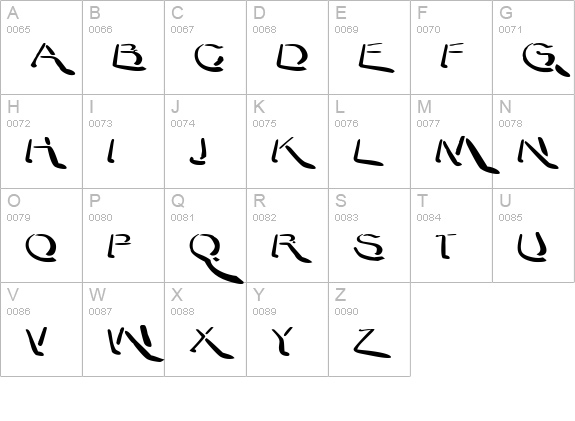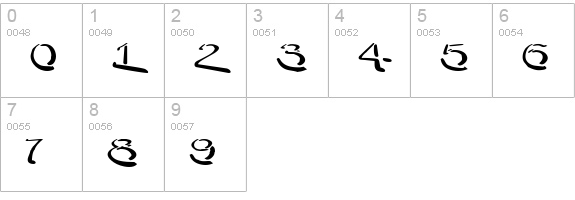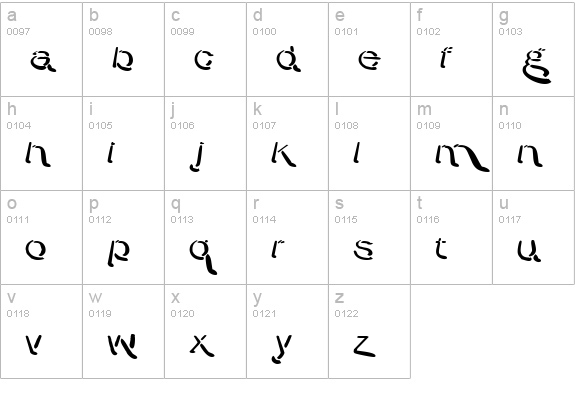
Warpy Roundheads Font Details
Warpy Roundheads font is a whimsical and playful typeface that brings a touch of fun to any project. With its rounded and slightly distorted letterforms, this font captures the essence of creativity and imagination. Each letter has a unique and quirky shape, adding a distinctive character to your designs. The Warpy Roundheads font is perfect for a wide range of applications, including logos, branding, posters, invitations, and more. Its friendly and approachable appearance makes it suitable for both digital and print projects. Whether you're creating a children's book, a website for a creative agency, or a playful party invitation, this font will bring a delightful touch to your design. One of the best features of Warpy Roundheads font is that it is available for free. You can easily download it from FontsMarket.com, a trusted source for high-quality fonts. With just a few clicks, you can add this charming typeface to your font collection and start using it in your projects right away. The Warpy Roundheads font supports a wide range of languages and comes with both uppercase and lowercase letters, as well as numbers and punctuation marks. It also includes alternate characters and ligatures, allowing you to create even more unique and eye-catching designs. Don't miss out on the opportunity to enhance your designs with the playful and whimsical vibe of Warpy Roundheads font. Download it for free from FontsMarket.com and let your creativity run wild!